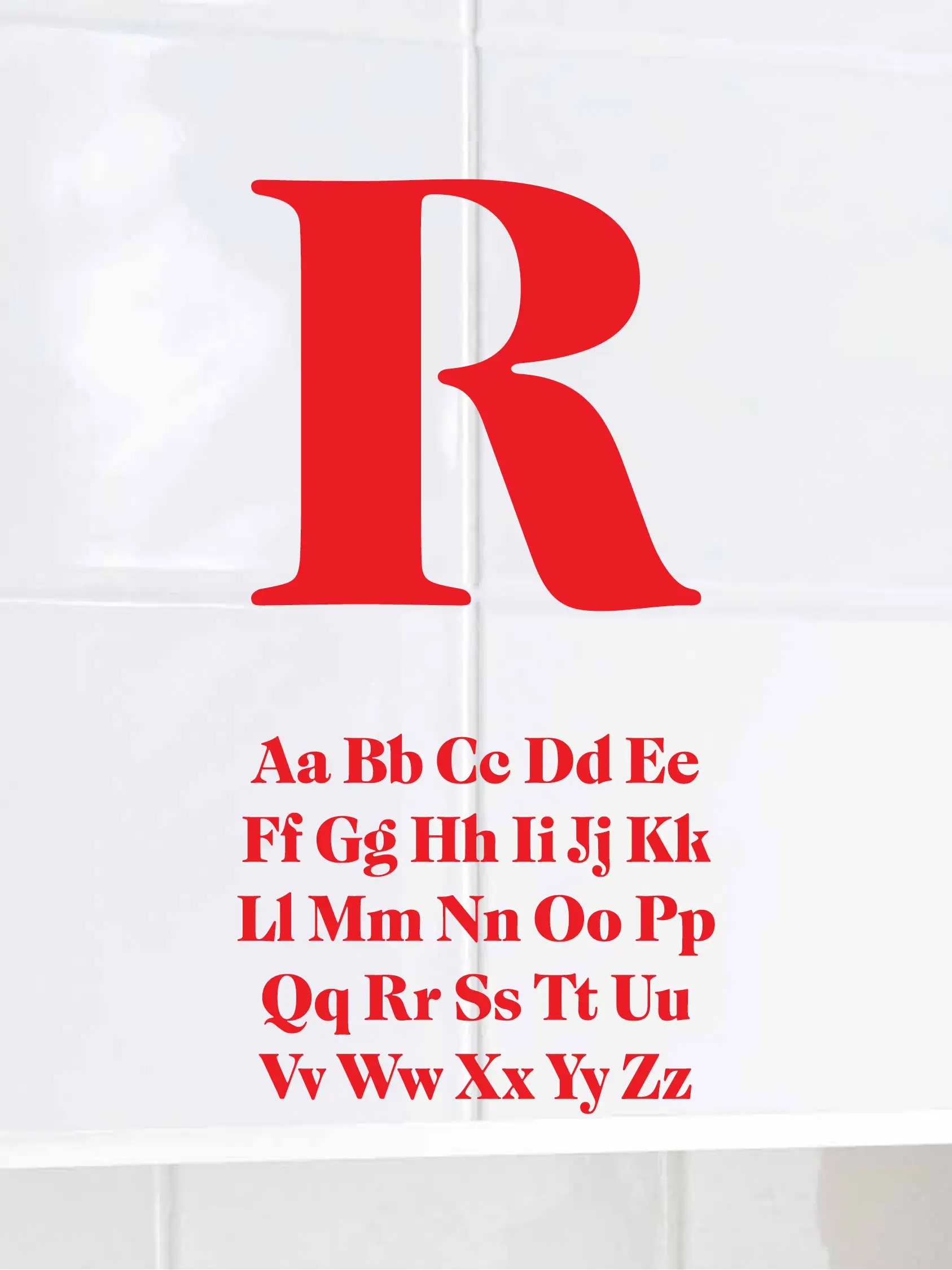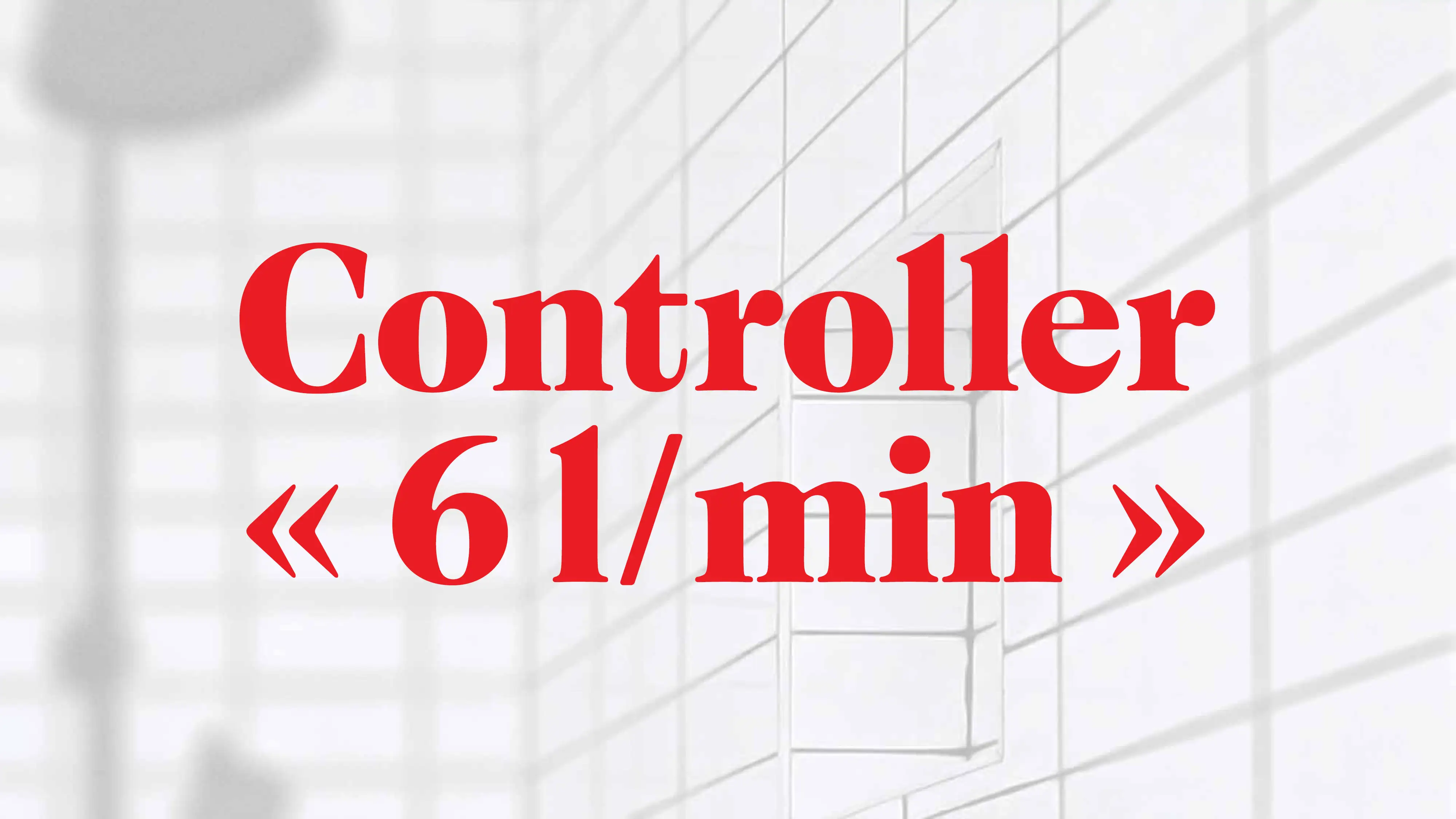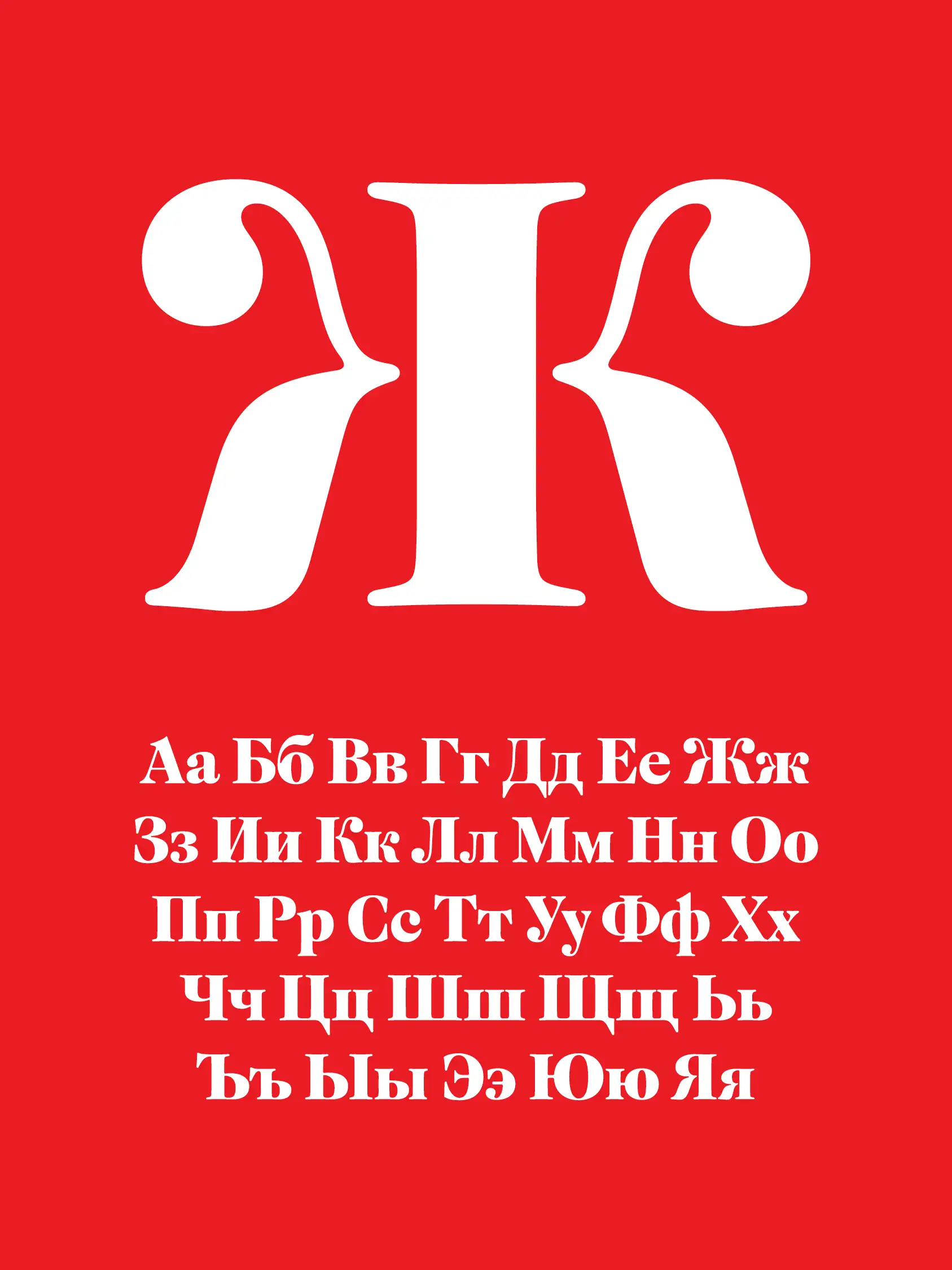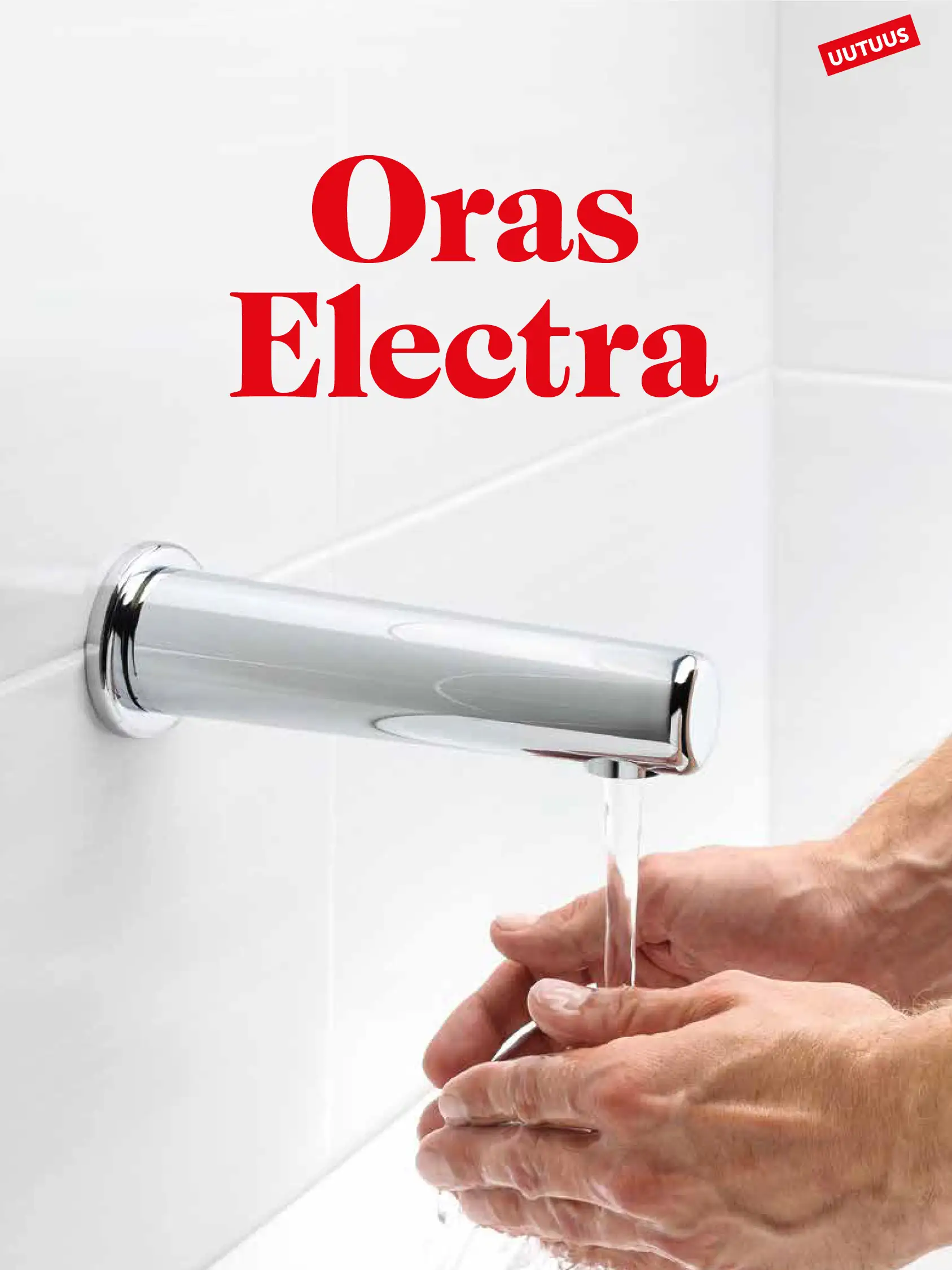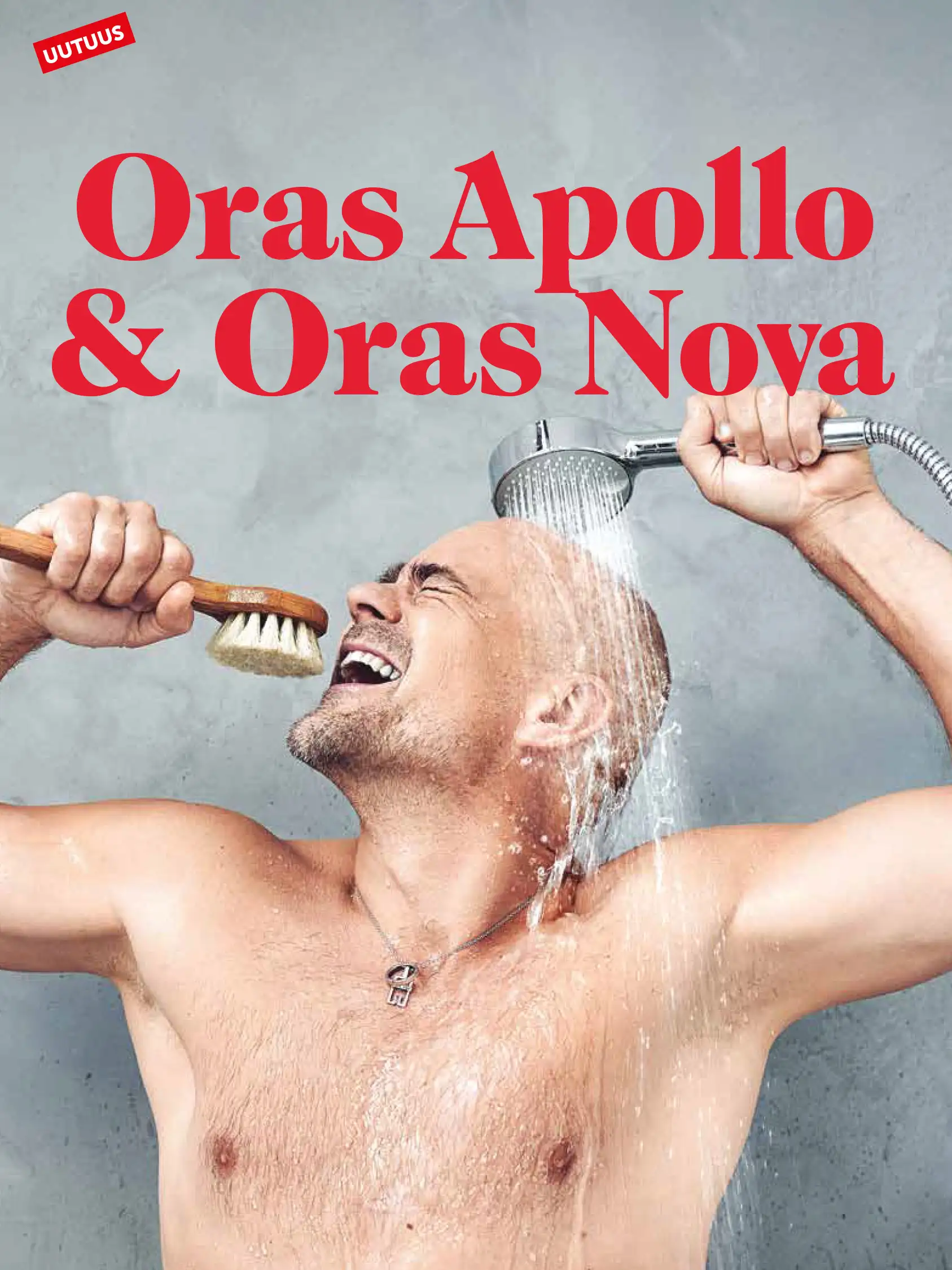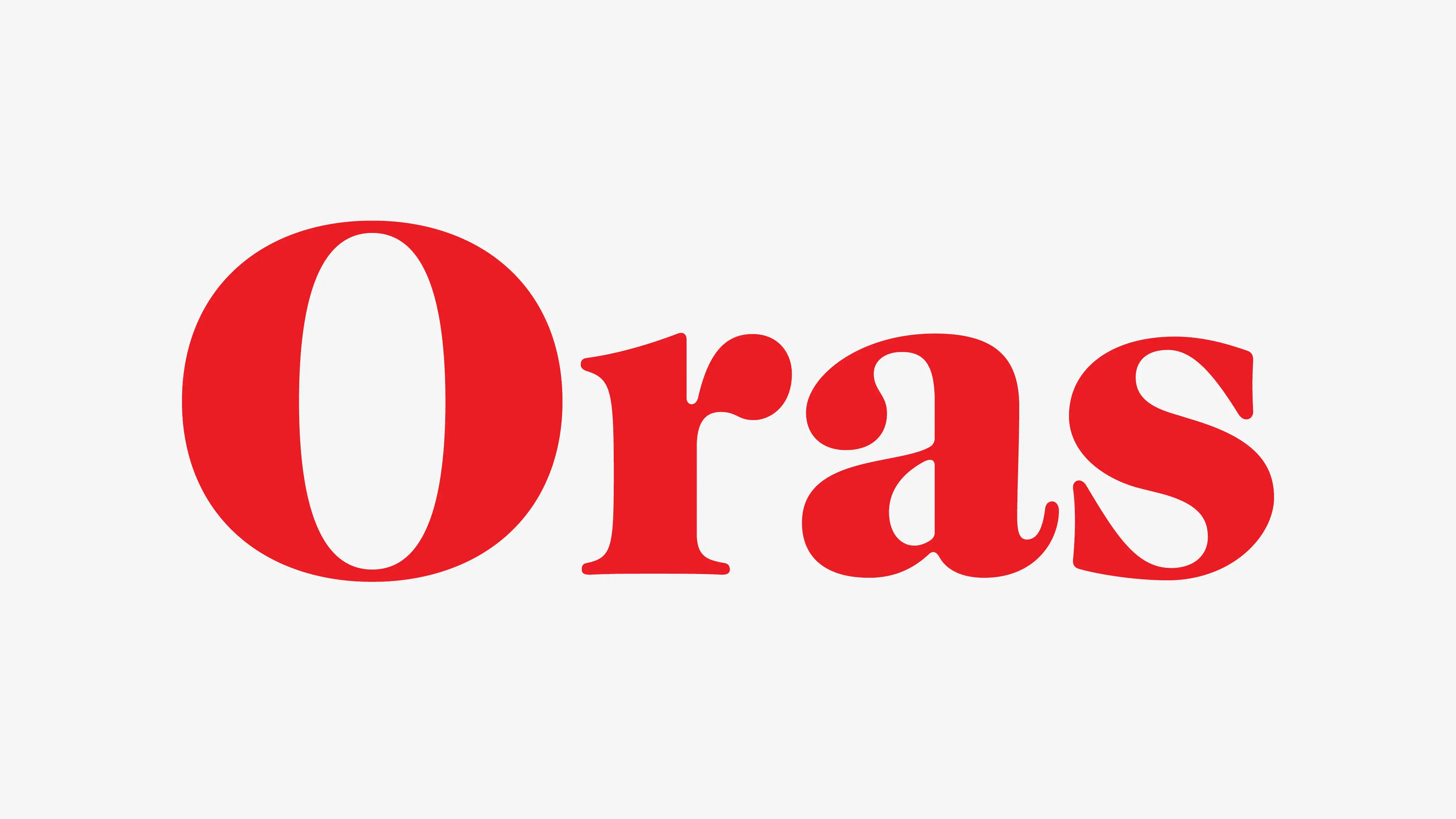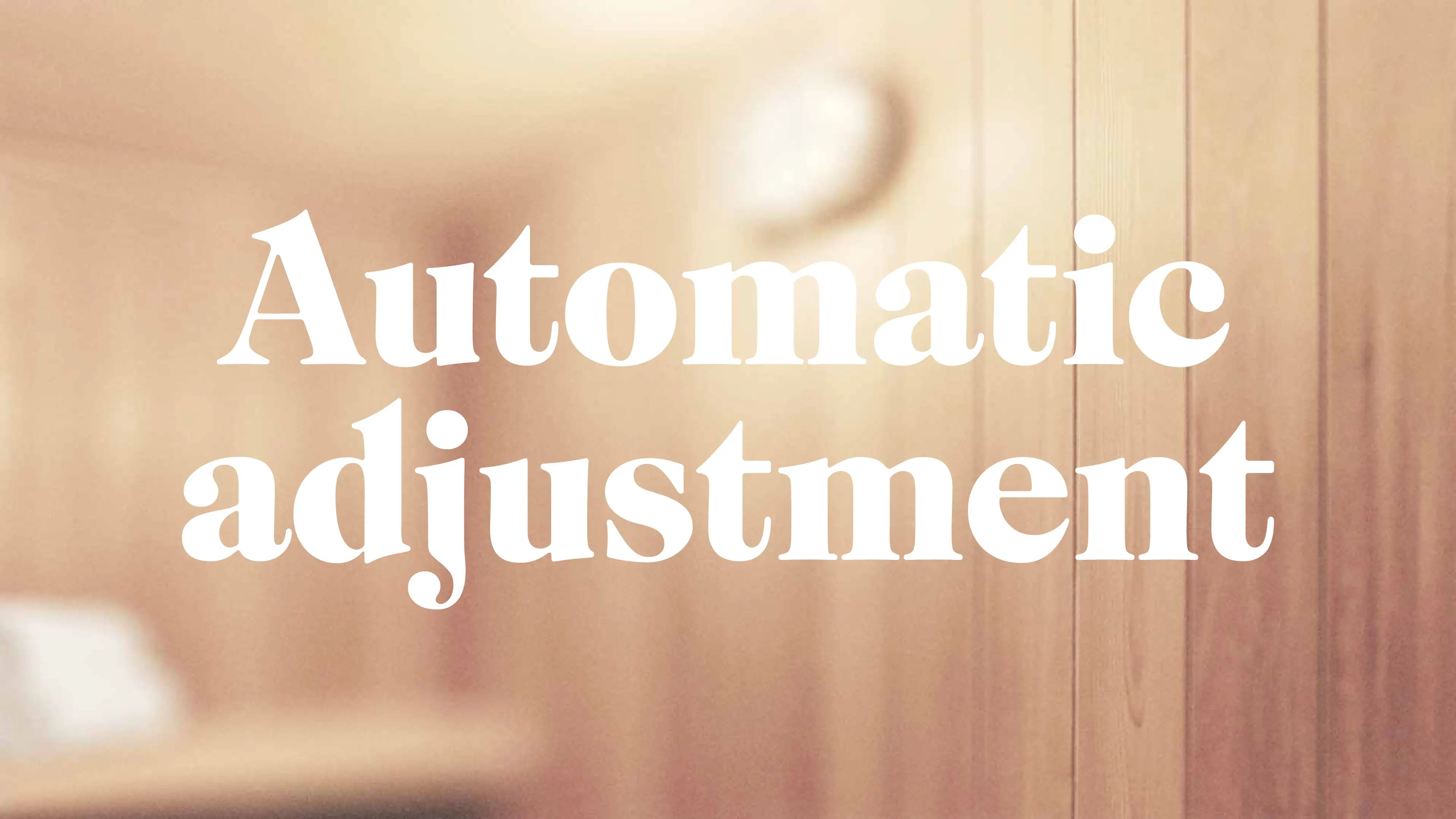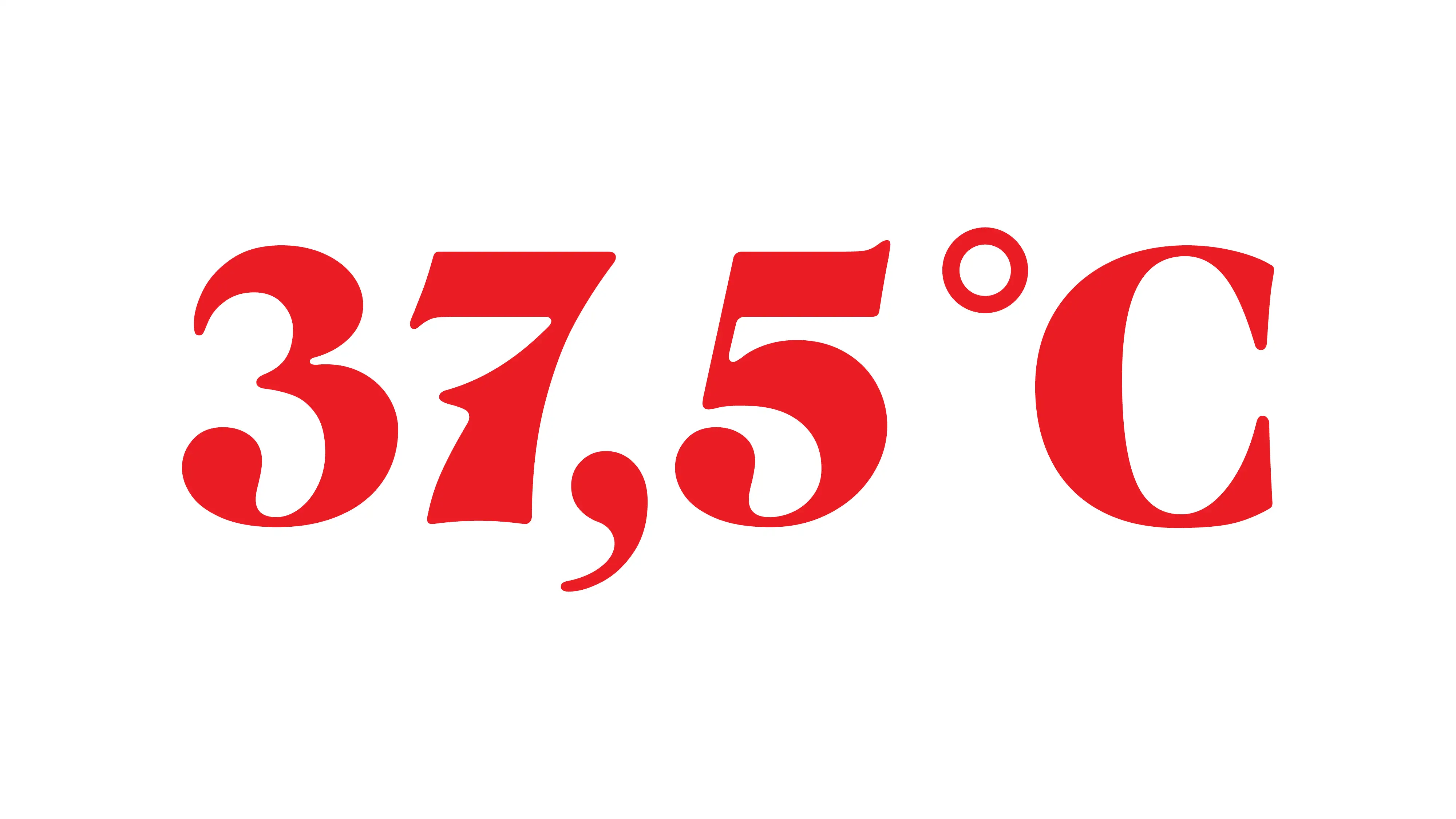
Finnish bathroom fixtures with distinctive design and reliable mechanics. The typeface presenting the brand story in headlines with a gently narrative voice. The letterforms add a new layer to the visual vocabulary of the Oras product line, still connecting to their function through fluid curves and drop-like shapes, that inspires an appreciation for the element of water.
Niklas Ekholm, Juho Hiilivirta
Hasan & Co
Oras